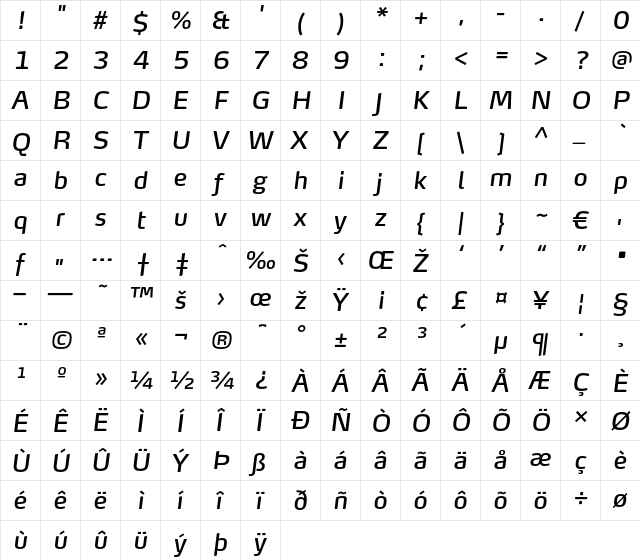
MaxTF-BookItalic Regular Font Preview
MaxTF-BookItalic Regular
Design Context for MaxTF-BookItalic Typeface
MaxTF-BookItalic is a composed and adaptable typeface that performs quietly and consistently across a wide range of design contexts. The dynamic lean of this cut emphasises speed and emphasis in any layout.
Pro Tip: Try MaxTF-BookItalic for annotation and caption copy alongside an upright companion — the contrast in angle creates a dynamic but ordered typographic system.